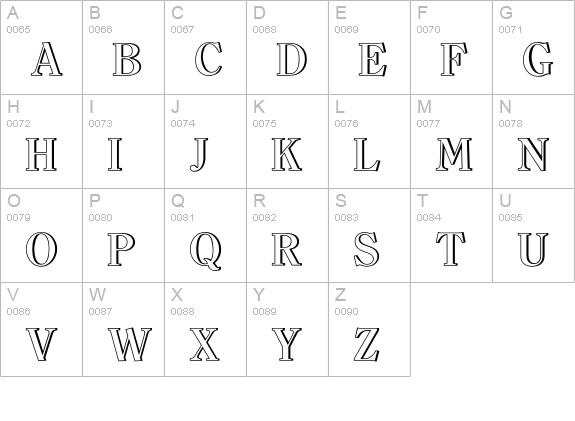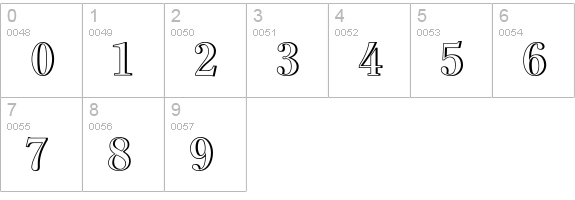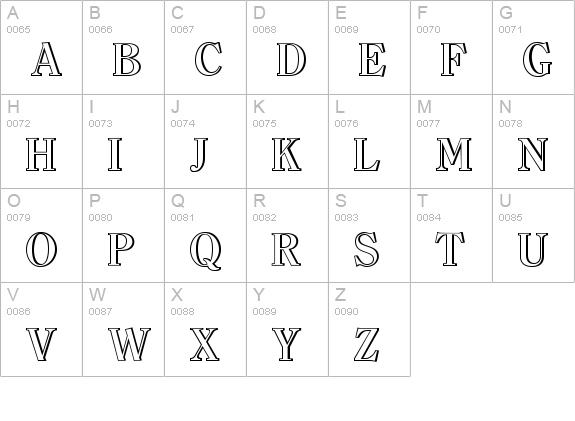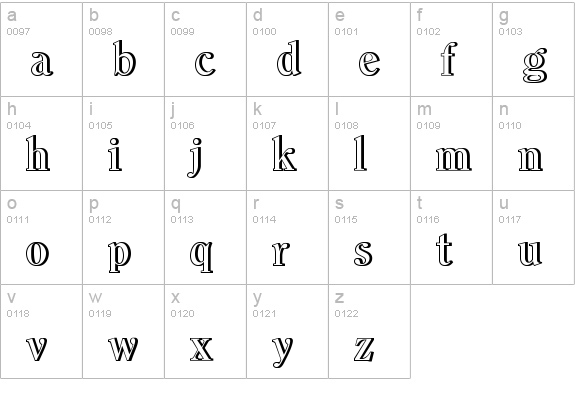
ClearfaceOutlineShadow Font Details
Introducing ClearfaceOutlineShadow, a sleek and modern font that exudes sophistication and elegance. This unique typeface combines clean lines with a subtle shadow effect, creating a striking visual impact that is perfect for a variety of design projects. ClearfaceOutlineShadow is a versatile font that can be used for both headings and body text, making it a great choice for websites, posters, invitations, and more. Its bold yet refined appearance is sure to captivate your audience and leave a lasting impression. Best of all, ClearfaceOutlineShadow is available for free download at FontsMarket.com. So go ahead and elevate your designs with this stunning font today!